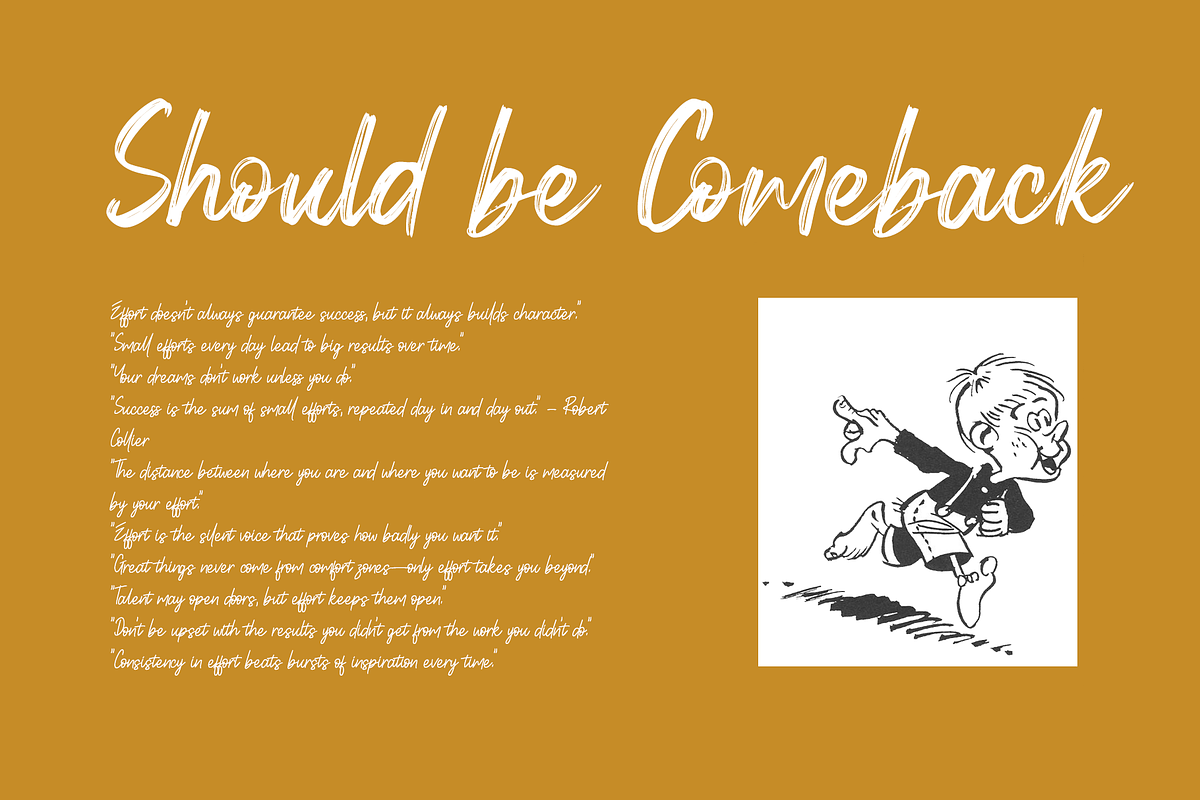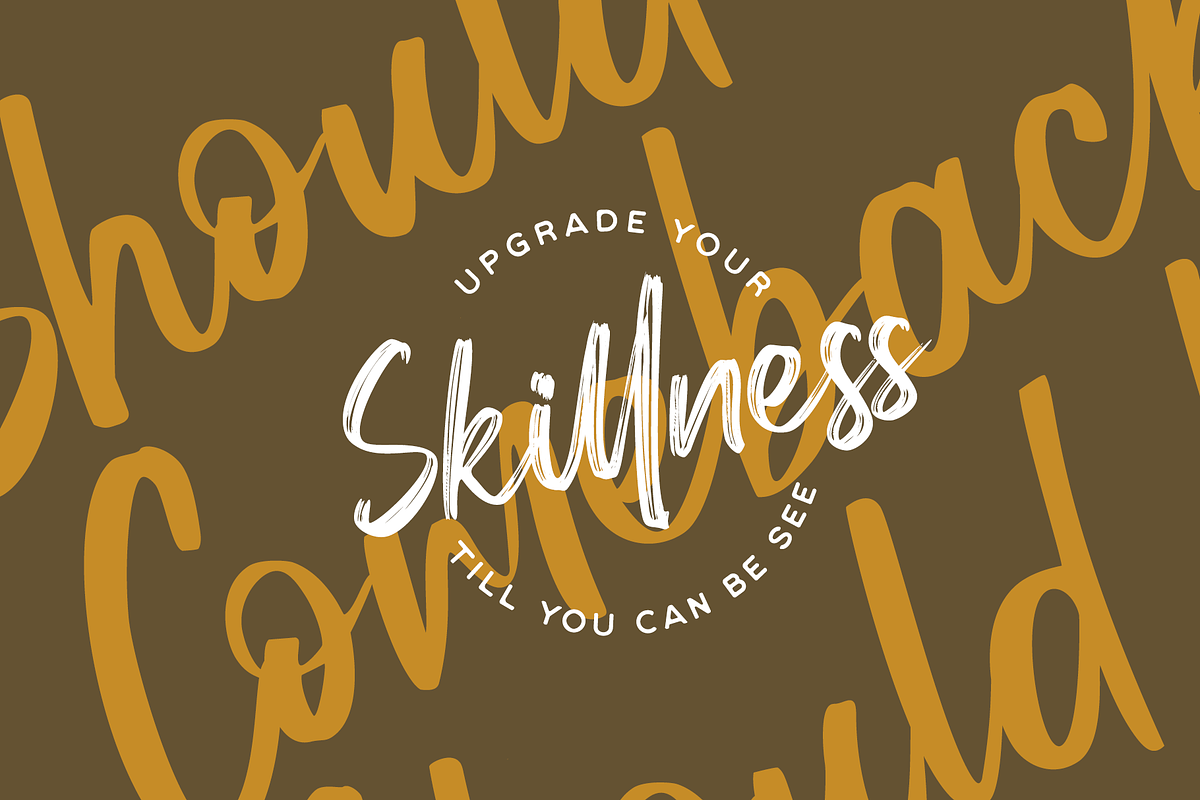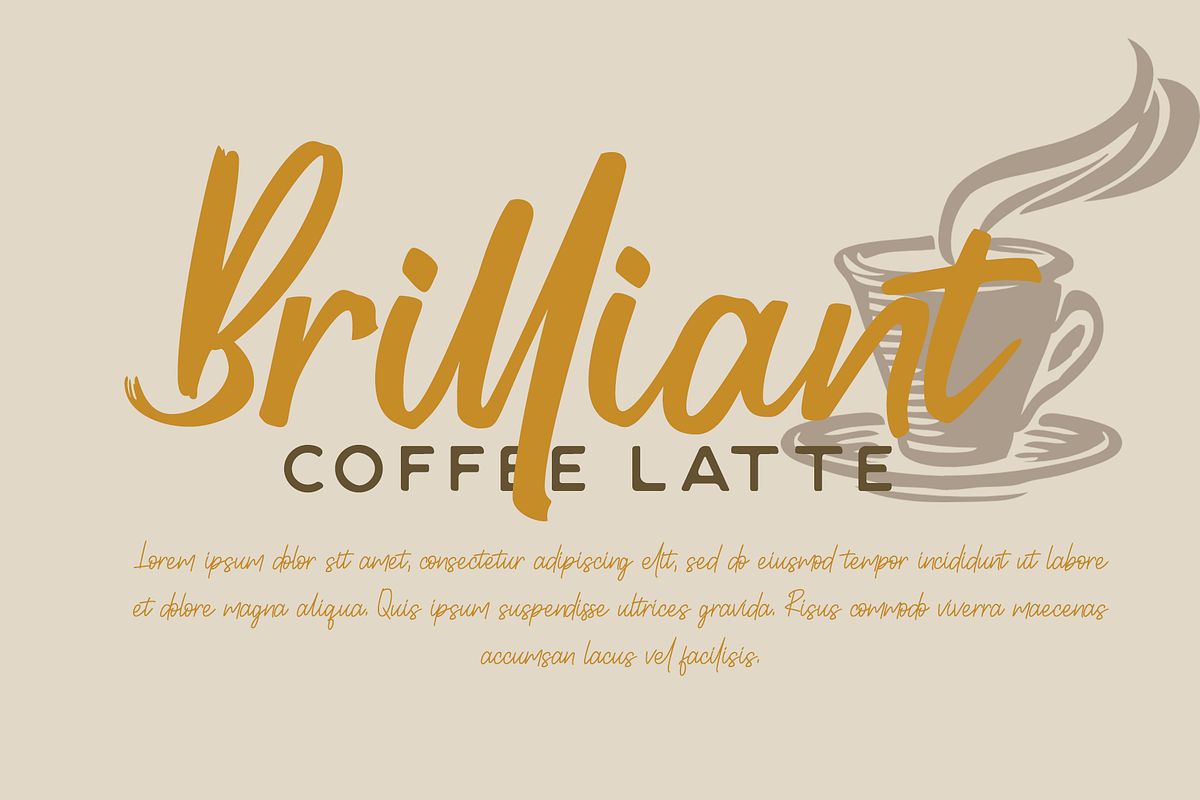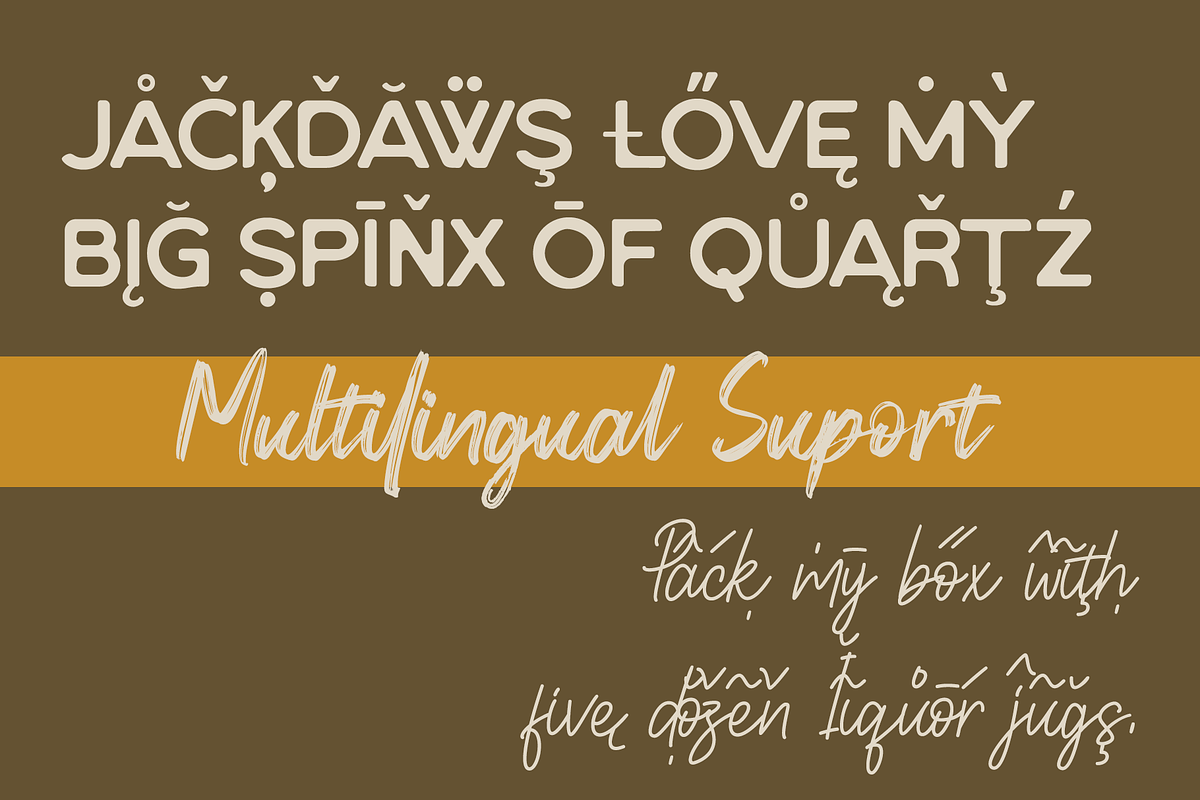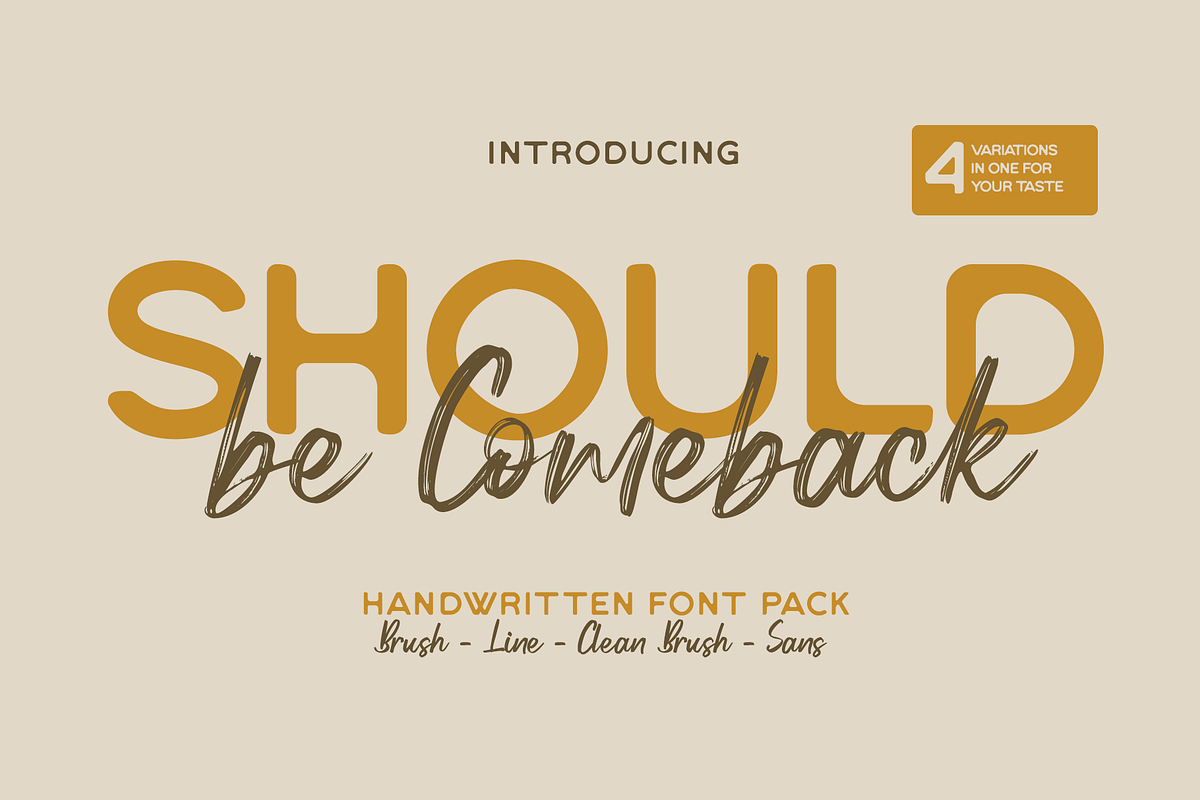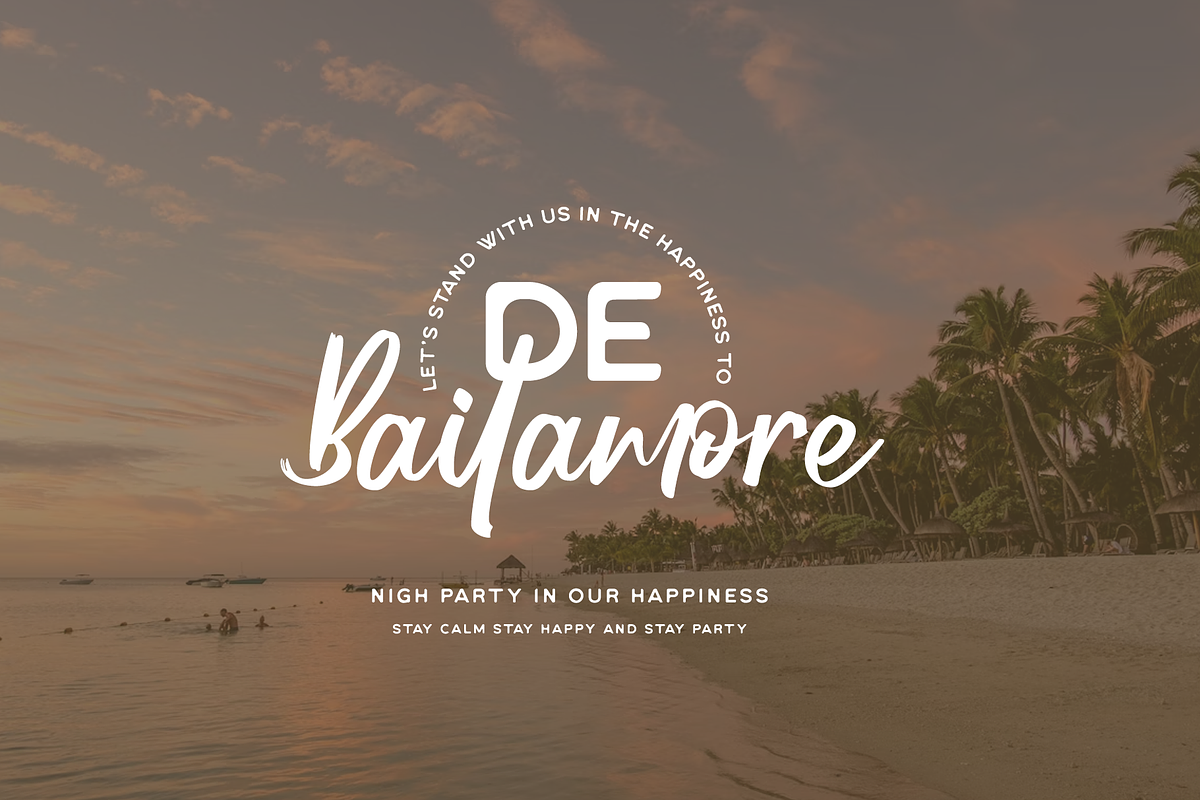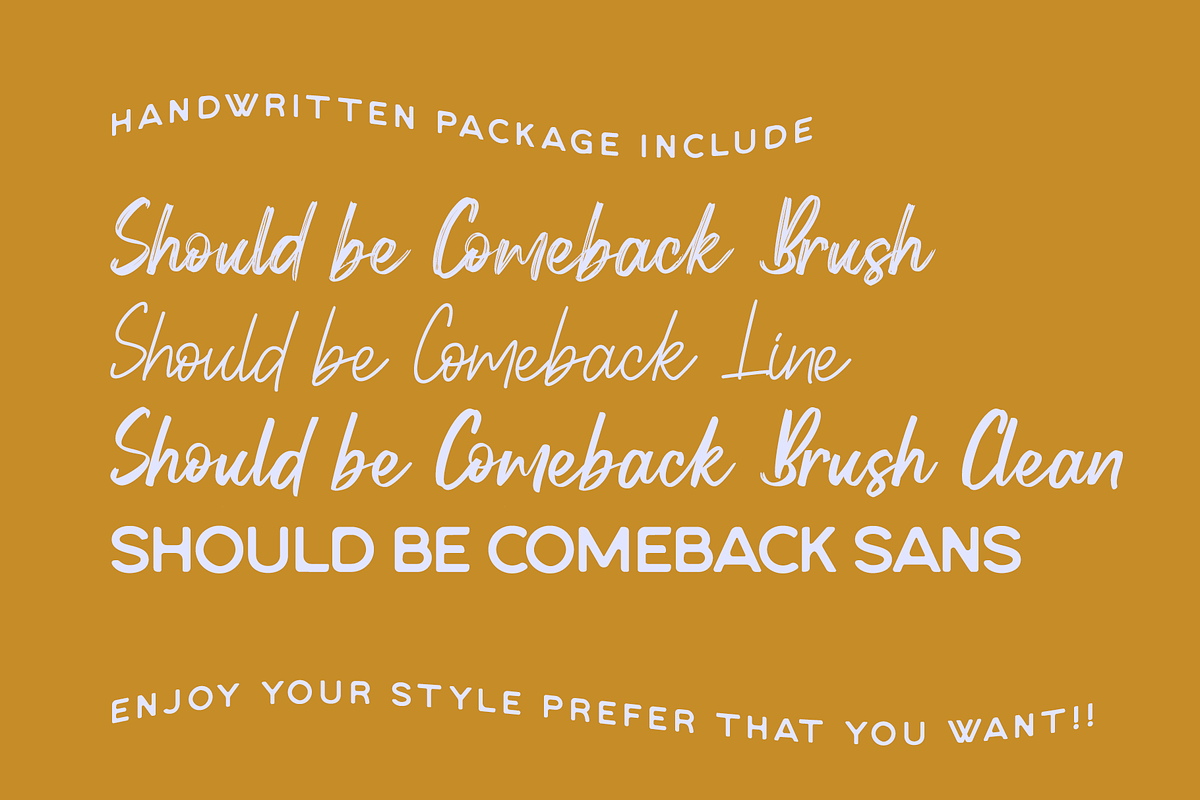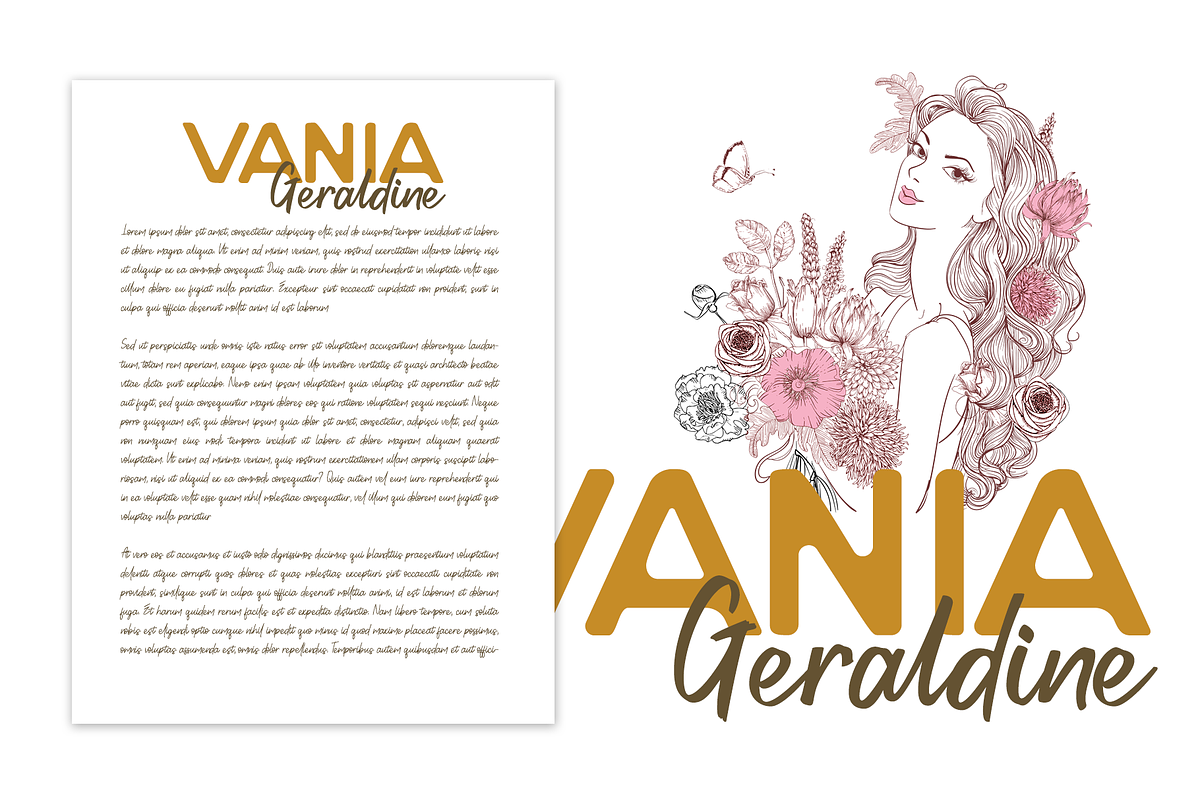
Should Be Comeback - Handwritten
Should Be Comeback is a dynamic handwritten font pack designed to bring warmth and personality to any project. Combining the charm of natural handwriting with clean, modern lines, this versatile set features 4 unique variations: Brush, Line, Clean Brush, and Sans. Whether you're crafting branding materials, social media posts, product packaging, or wedding invitations, this font pack offers the perfect balance between expressive brush strokes and minimalistic sans-serif clarity.
- 4 Font Styles: Brush, Line, Clean Brush, Sans
- Handwritten look with natural curves and texture
- Stylish alternates and ligatures (OpenType feature support)
- Smooth readability for both display and text use
Benefits :
- Creative Flexibility: With four styles in one package, mix and match to suit various design moods—from casual and artistic to clean and professional.
- Authentic Handwritten Appeal: Perfect for logos, posters, quotes, and branding that needs a personal touch.
- Time-saving Pack: No need to search for matching fonts—the pack is already harmonized for consistency.